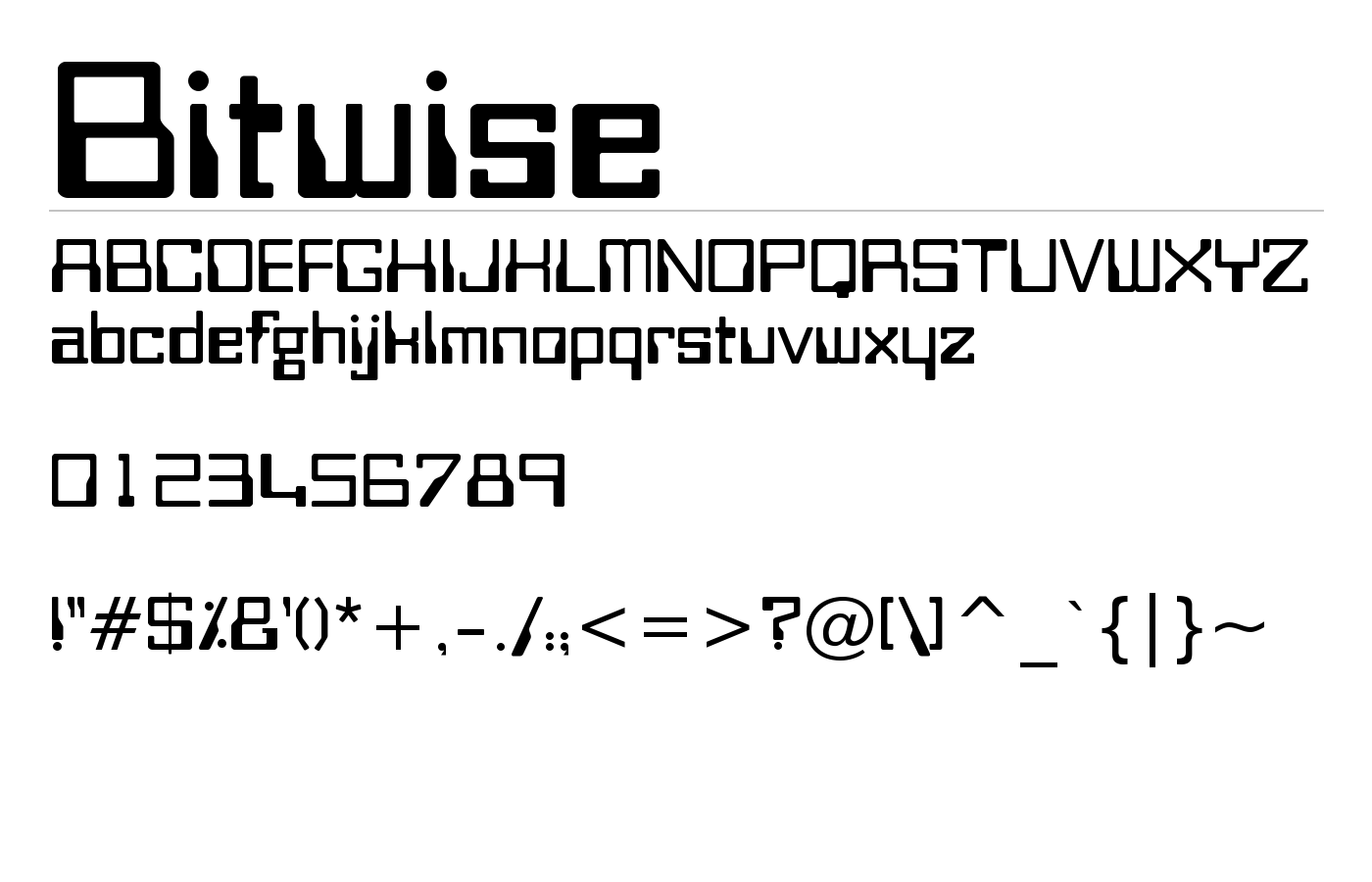
Bitwise is a modern, geometric sans serif font with a technical and digital feel. Its squared shapes and consistent stroke weight give it a clean, structured appearance, making it ideal for tech-related branding, digital interfaces, and futuristic designs. This font works well for headlines and logos where a strong, precise impression is needed.
Bitwise Font
About Bitwise Font